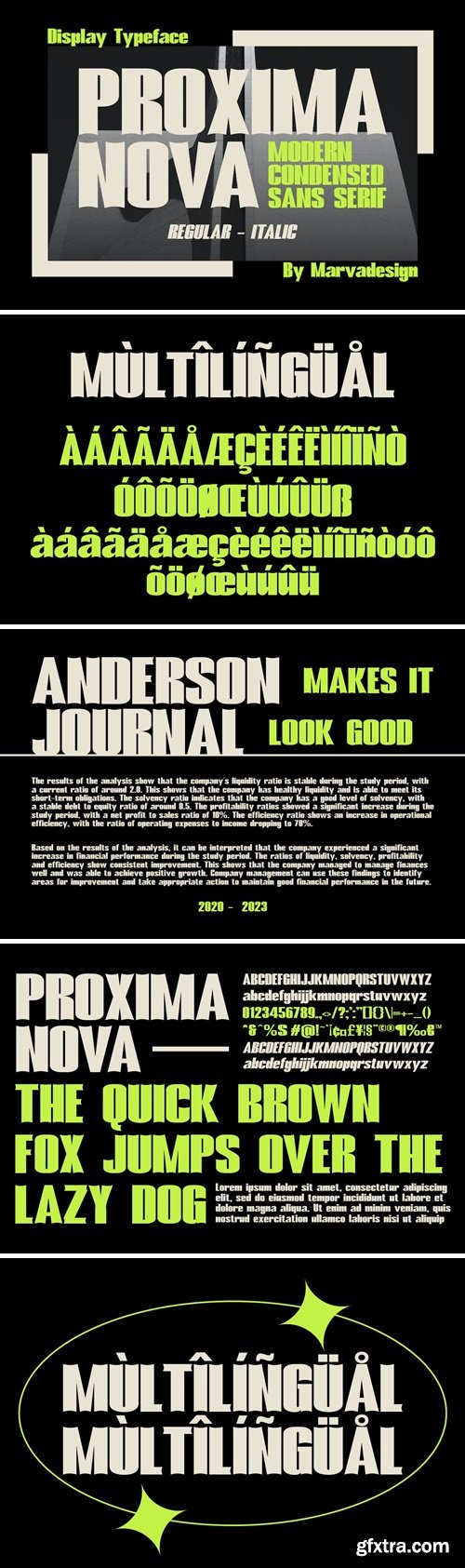
proxima nova - 一种现代压缩字体
Introducing our new product Proxima Nova Font - Modern Font is a bold and authentic display font. The font is suitable for any branding project like logo, Template Design, Product and many more. outstanding in a wide range of contexts.